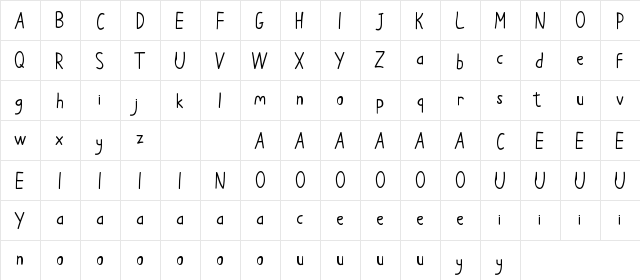
Telly Humble DEMO Sans Regular
| Foundry | edric studio |
| Designer | Yasri - Fahri F F |
Design Context for Telly Humble DEMO Sans Typeface
Telly Humble DEMO Sans is a composed and adaptable typeface that performs quietly and consistently across a wide range of design contexts.